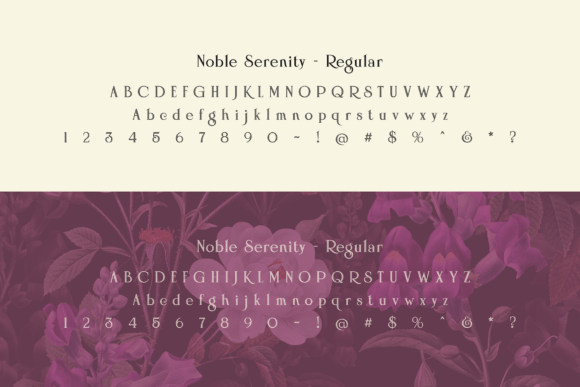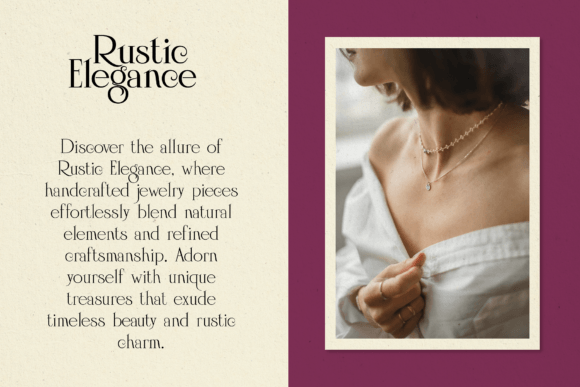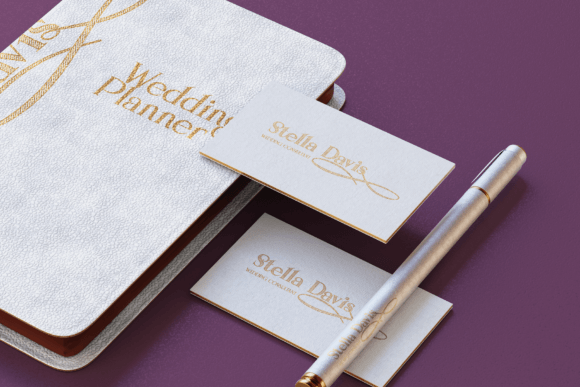
Introduction to Noble Serenity Font
Have you ever been stuck on a creative project, searching for the perfect font to bring your vision to life? You know, that elusive combination of style, sophistication, and serenity that elevates your design from good to great? That’s where the Noble Serenity Font comes in – a game-changing design resource that’s about to become your go-to companion for all your high-quality creative projects.
With its exquisite serif design, Noble Serenity Font exudes an aura of understated charm and sophistication, making it the perfect choice for luxury branding, wedding invitations, and editorial layouts. Whether you’re a seasoned designer or just starting out, this font is a valuable addition to your design arsenal – and the best part? You can download it for free and start exploring its limitless possibilities with a transparent background that lets your creativity shine through.
Key Features of Noble Serenity Font
- Noble Serenity Font is a high-quality design resource ideal for creative projects, offering a unique and elegant touch.
- This font features a transparent background, making it perfect for use on various backgrounds and designs.
- The font is available for free download, allowing designers to access a versatile and stylish design element without any cost.
- Noble Serenity Font is designed to be highly legible, making it perfect for use in body text, headings, and other design elements.
- This font is ideal for designers seeking a unique and elegant touch for their creative projects, from wedding invitations to branding materials.
Honest Review: Noble Serenity Font
I recently stumbled upon the Noble Serenity Font, and I must say it’s been a delightful addition to my design library. This high-quality font is perfect for creative projects that require a touch of elegance and sophistication. One of the standout features of this font is its free download, making it an excellent design resource for designers of all levels.
What works well: ✨ The font’s transparent background makes it easy to layer and combine with other design elements, creating a seamless and cohesive look. The font’s versatility is another plus, as it can be used in a variety of contexts, from headings to body text. Additionally, the font’s high-quality design ensures that it will look great at any size, making it perfect for large-scale projects.
However, there are a few limitations to consider: ⚠️ The font may not be suitable for projects that require a bold or edgy look, as it tends to lean towards a more refined and subtle aesthetic. Additionally, the font’s simplicity may make it less noticeable in crowded designs.
Overall, I’m thoroughly impressed with the Noble Serenity Font. Its high-quality design, free download, and versatility make it an excellent addition to any designer’s library. While it may have some limitations, I believe it’s a valuable resource that can elevate any creative project.
- Perfect for elegant and sophisticated designs
- High-quality design for optimal readability